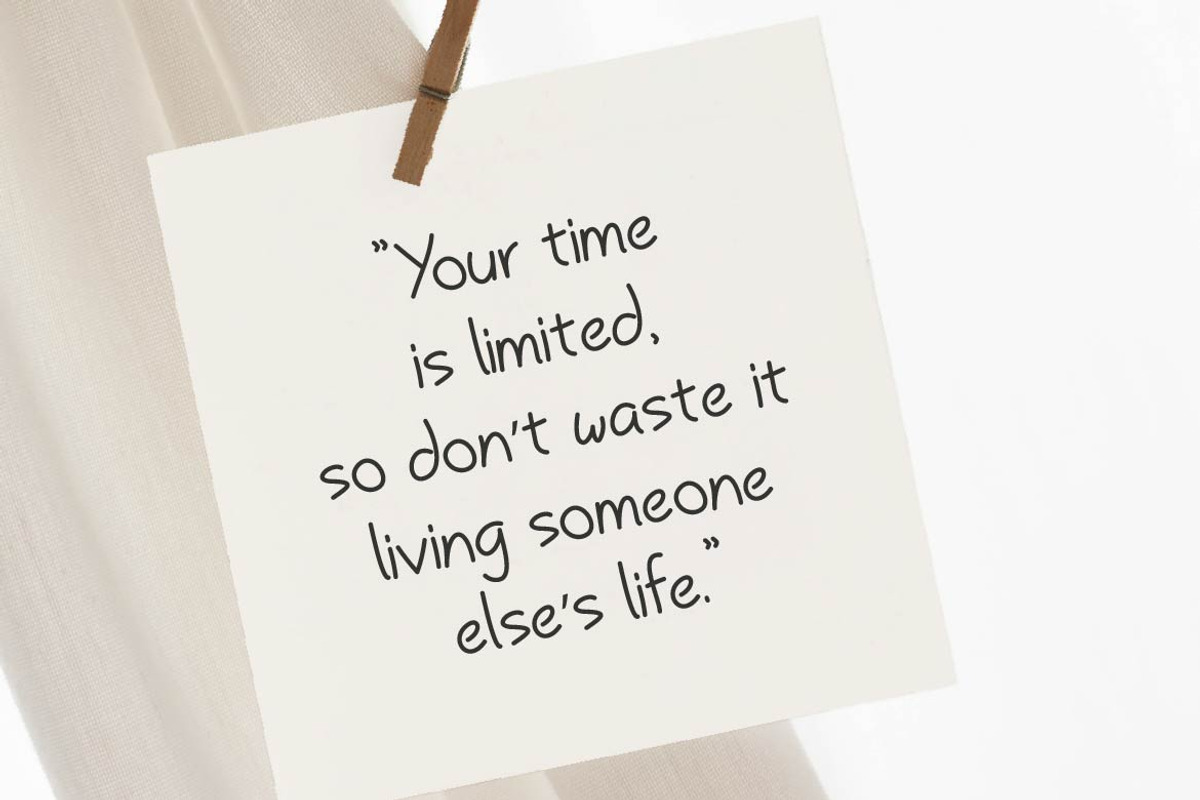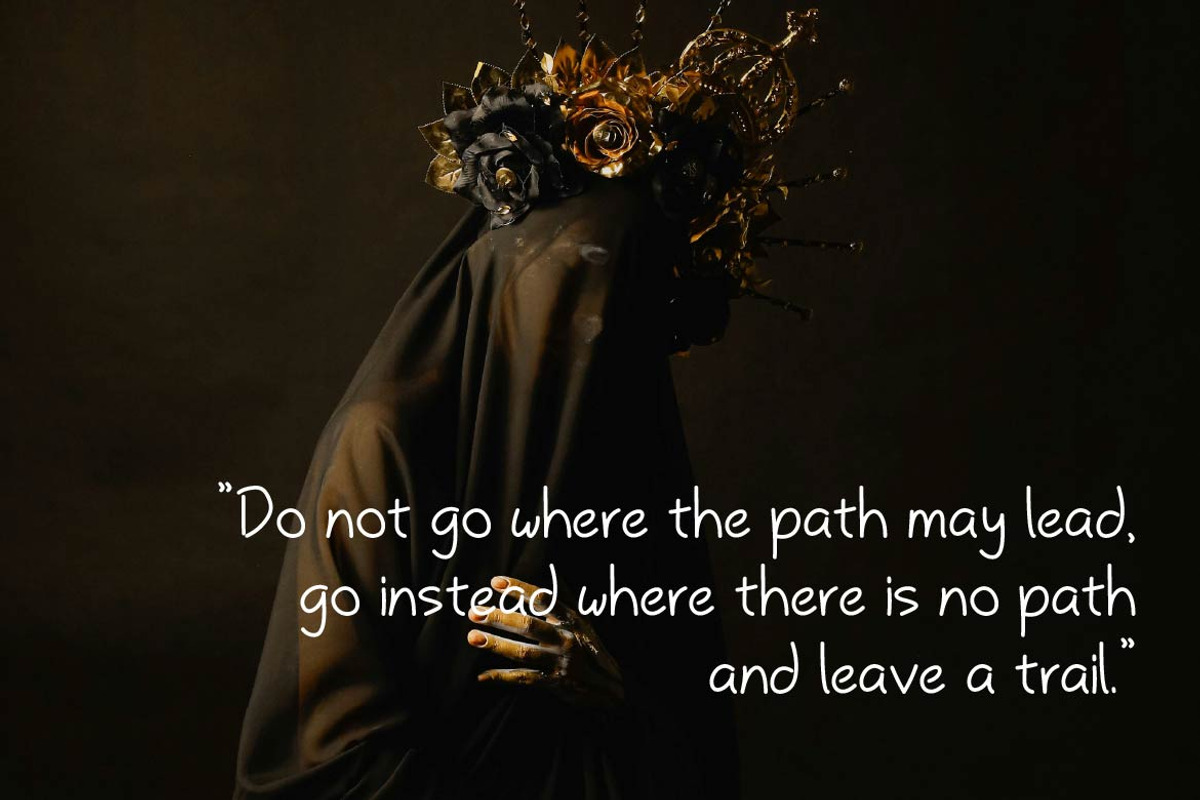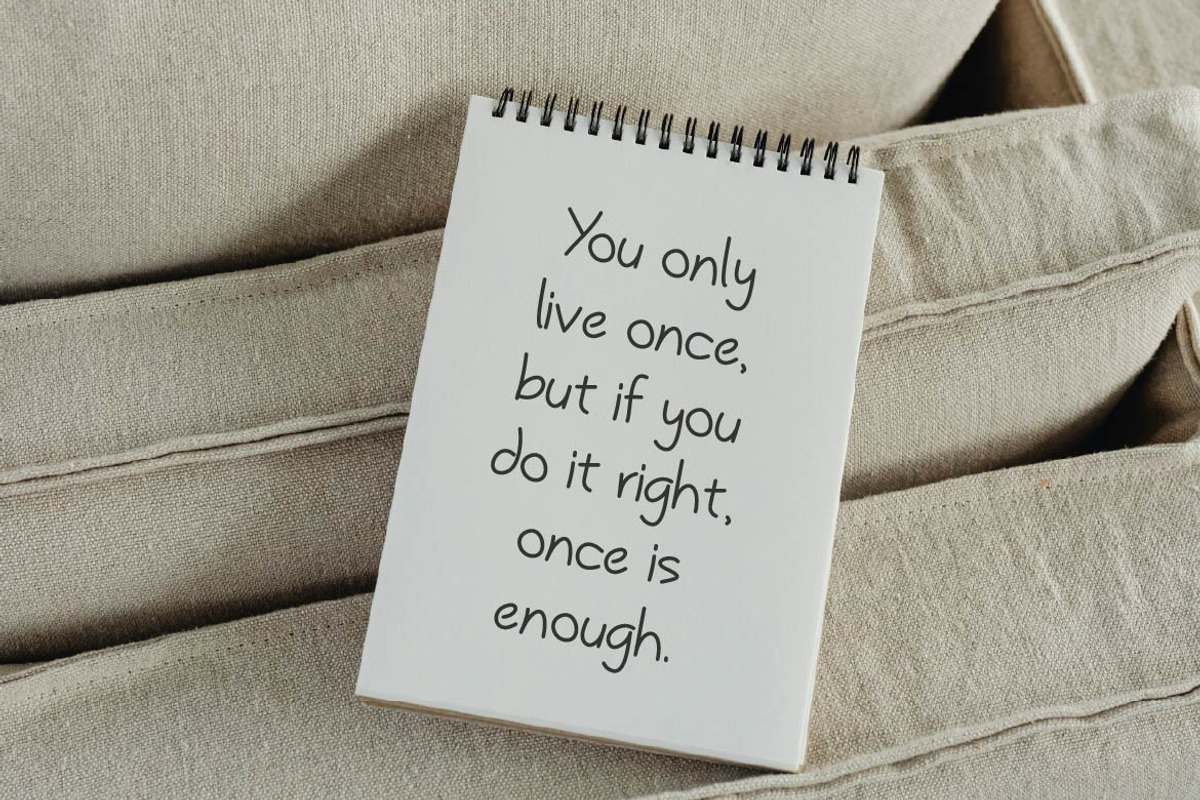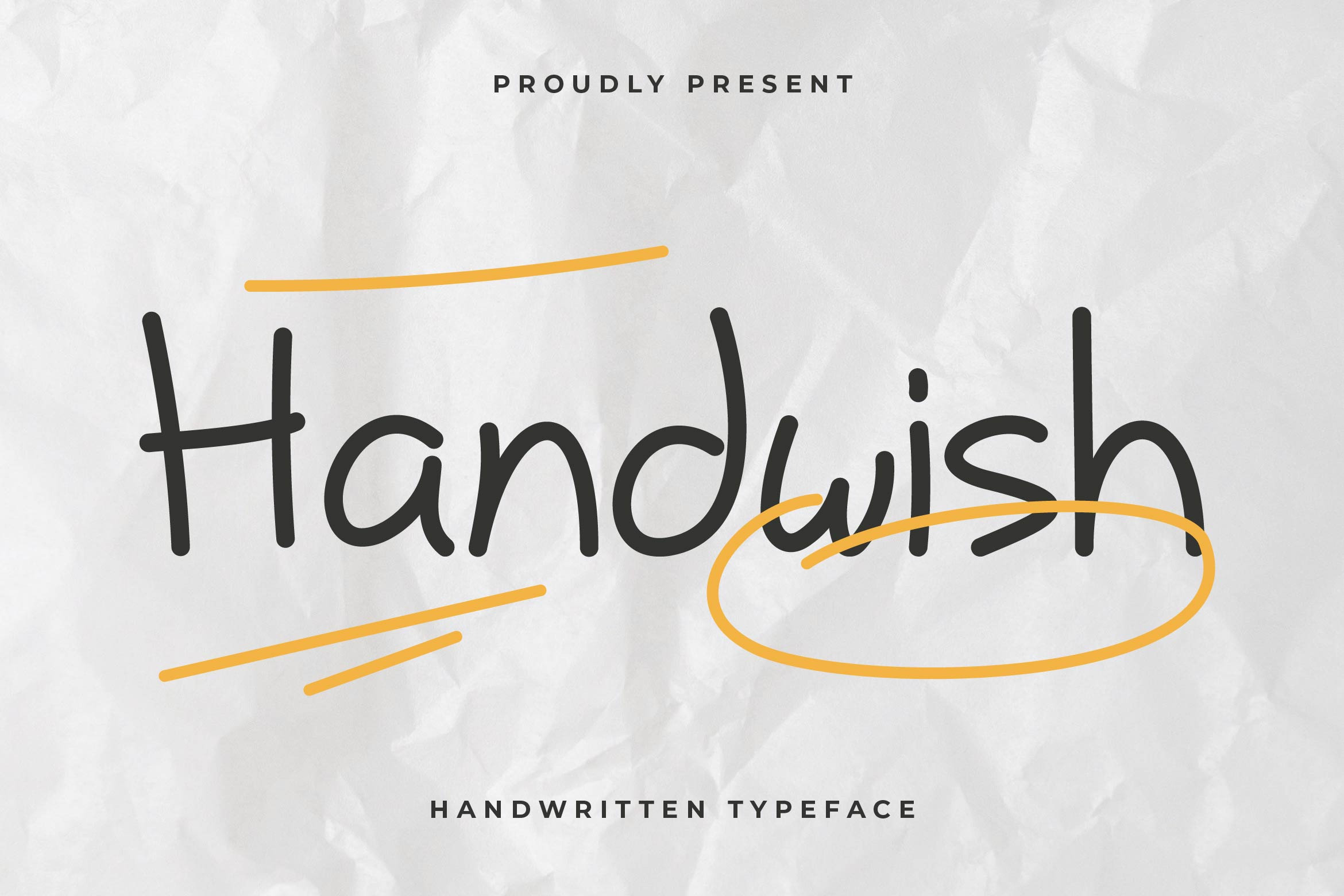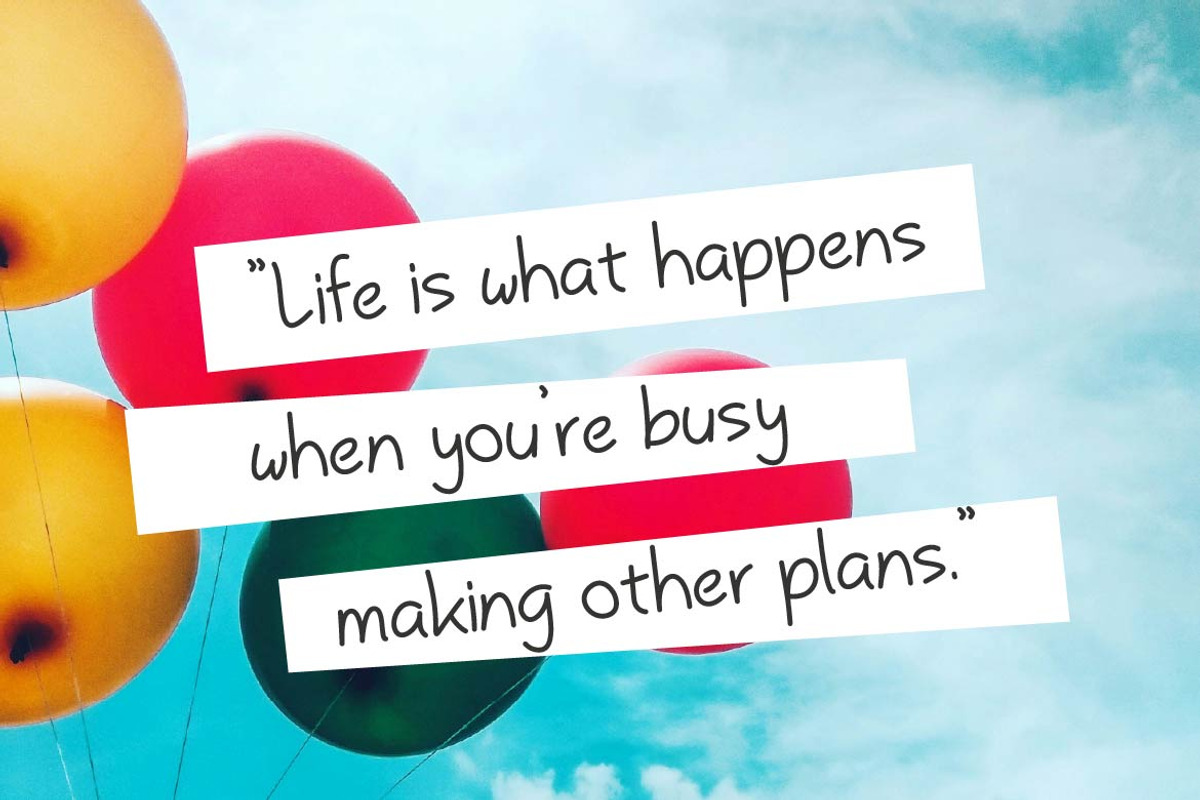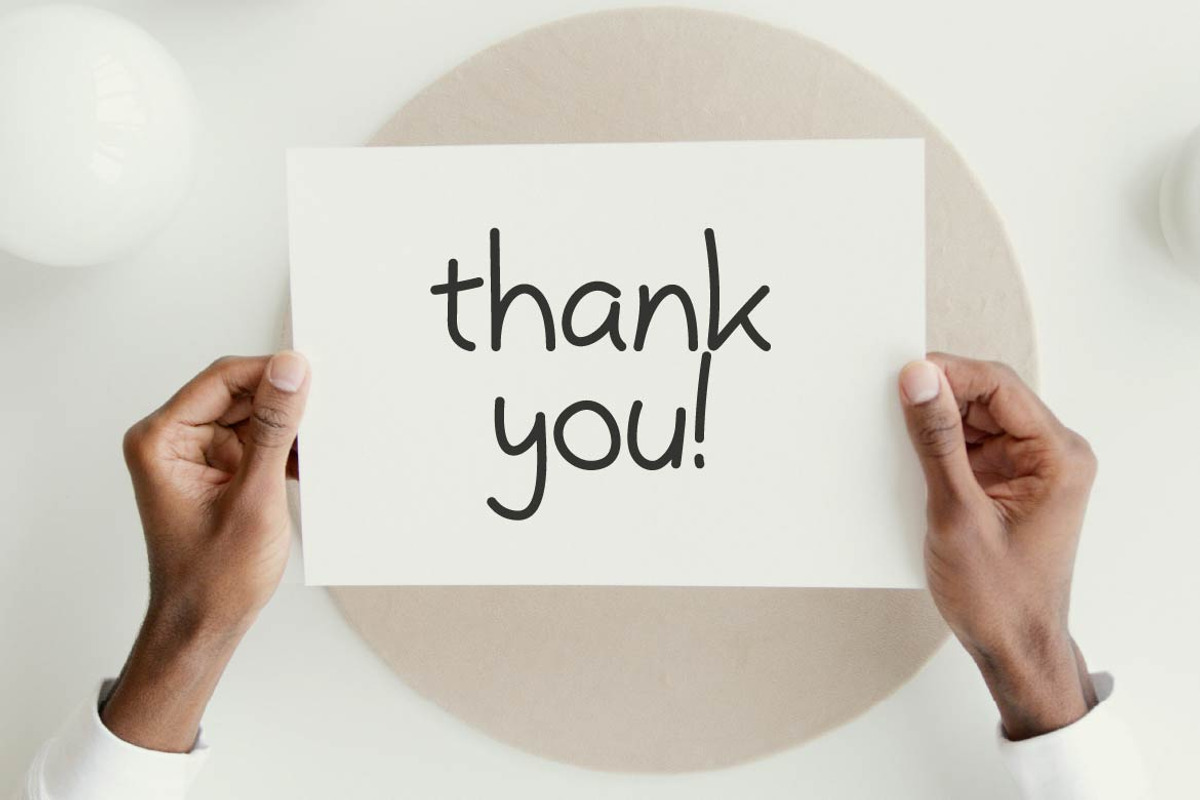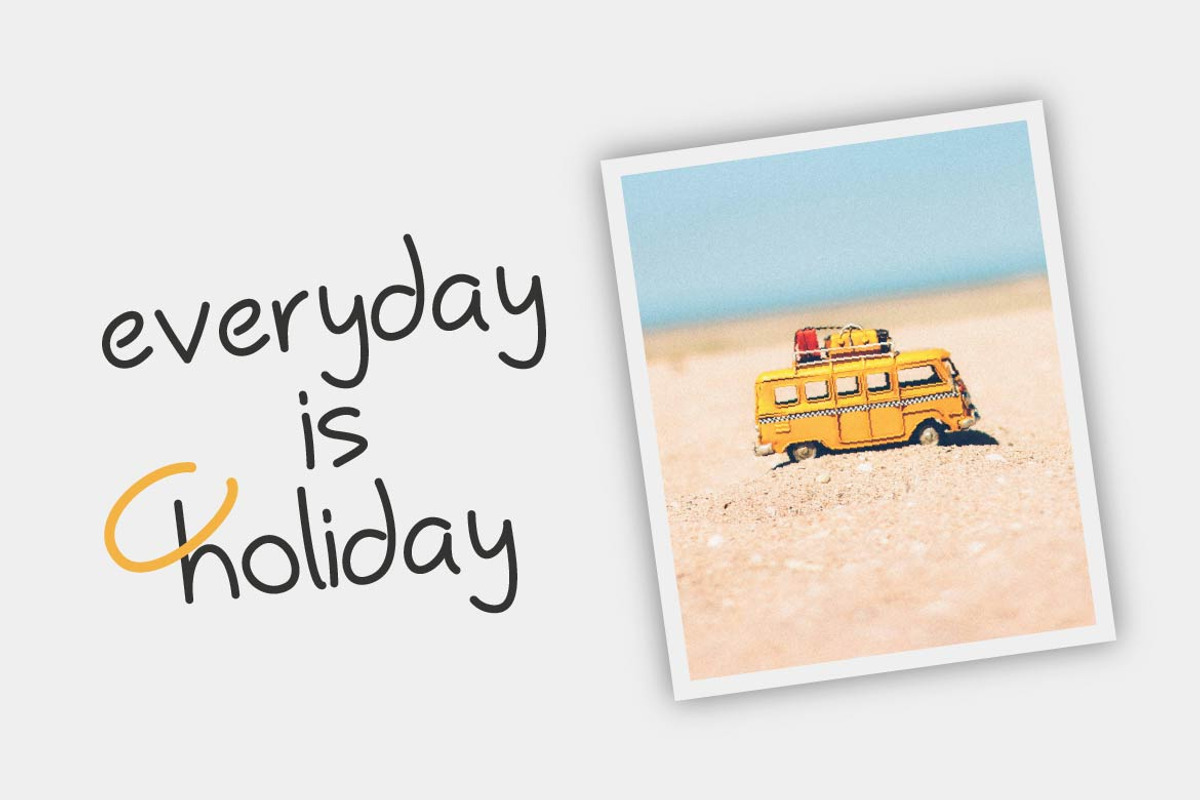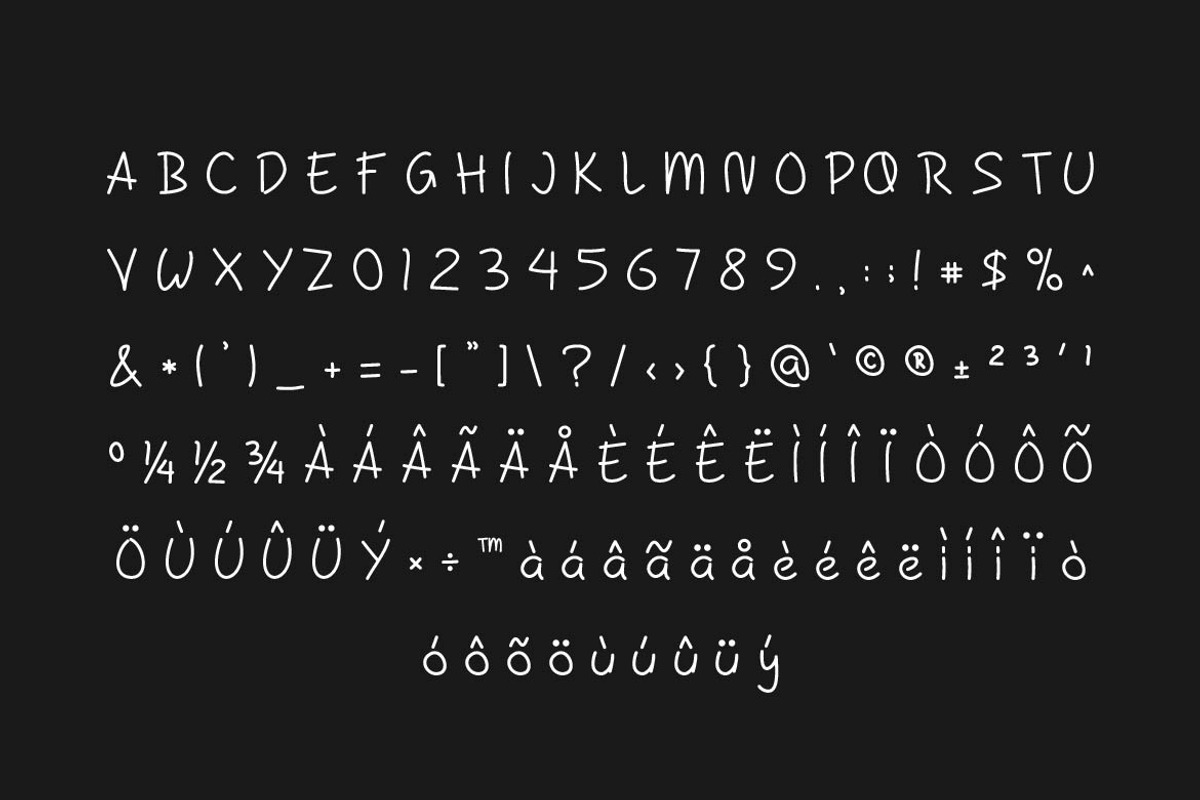
Handwish Handwritten Font
Handwish is a charming handwritten font that brings a personal, artistic touch to your designs. With its flowing strokes, playful rhythm, and naturally imperfect lines, Handwish feels like a note written from the heart — warm, expressive, and full of character. Perfect for branding, social media graphics, invitations, packaging, and creative projects that need a human feel.